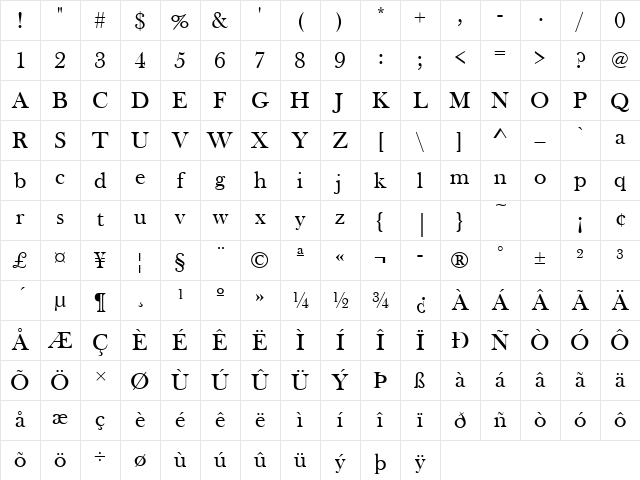
Baskerville Old Face Regular
Baskerville Old Face Family
Design Context for Baskerville Old Face
Baskerville Old Face is a composed and adaptable typeface that performs quietly and consistently across a wide range of design contexts.
Pro Tip: Use Baskerville Old Face in both headline and body roles to test its range before committing to a single application.